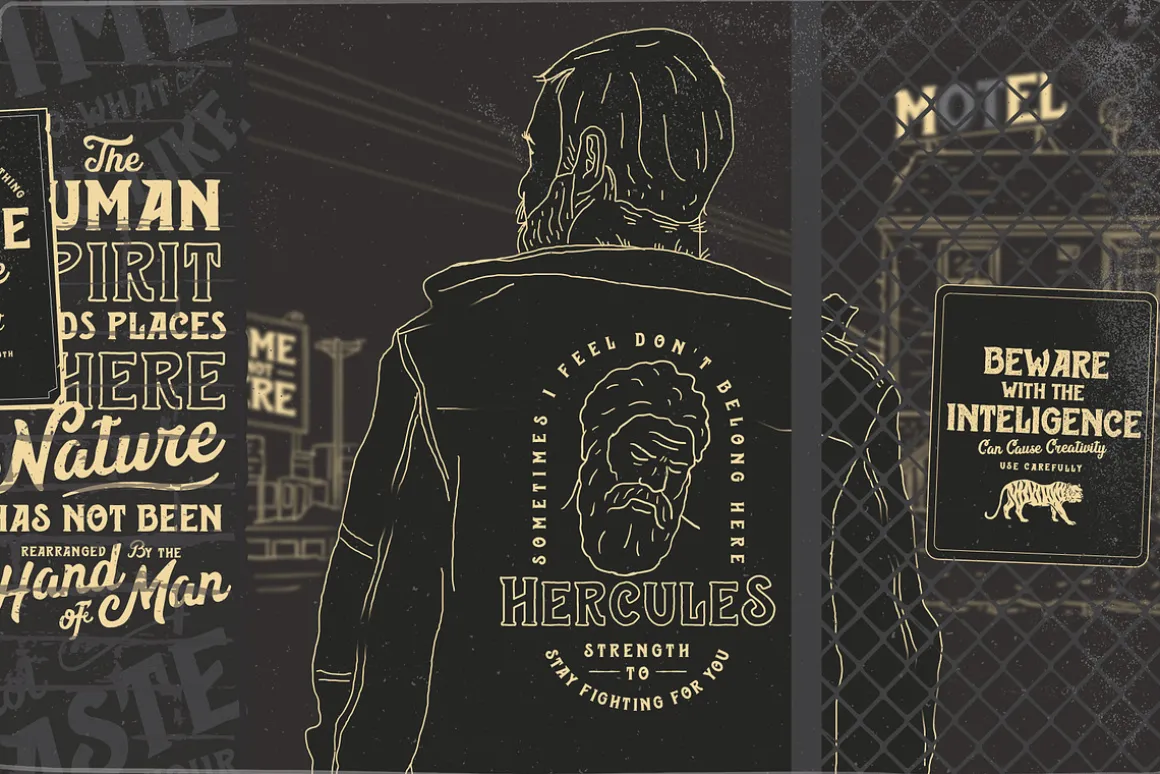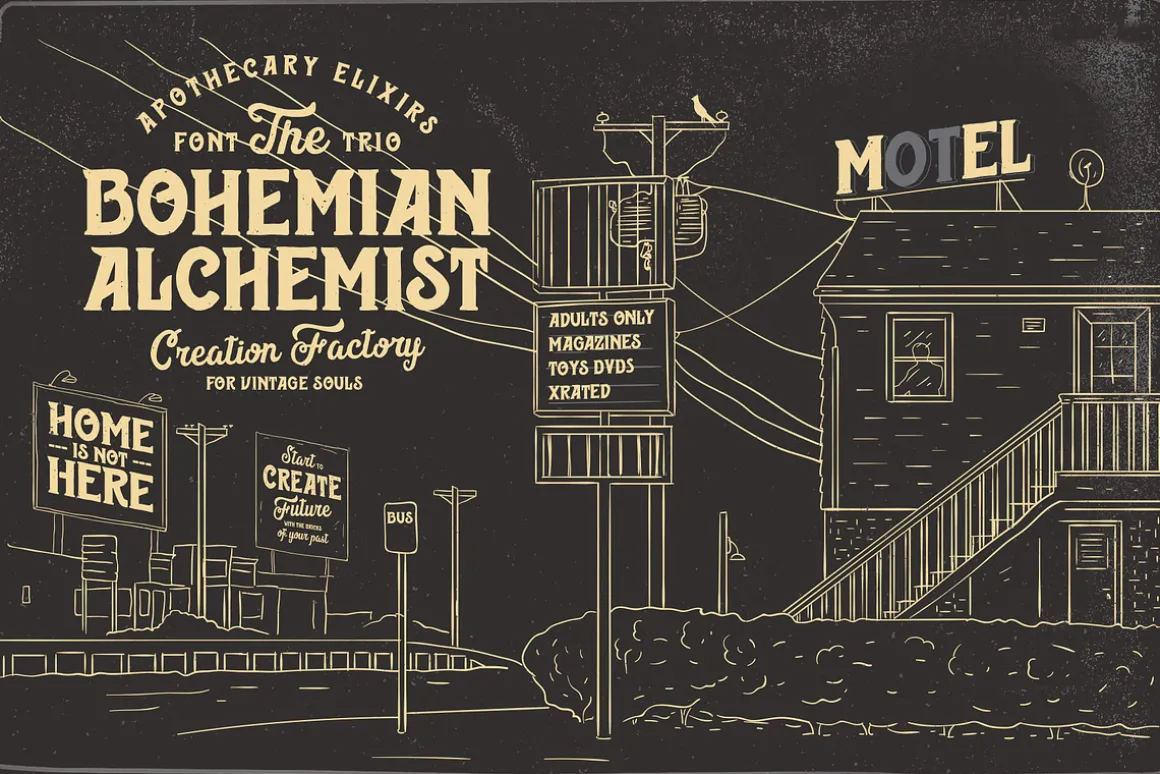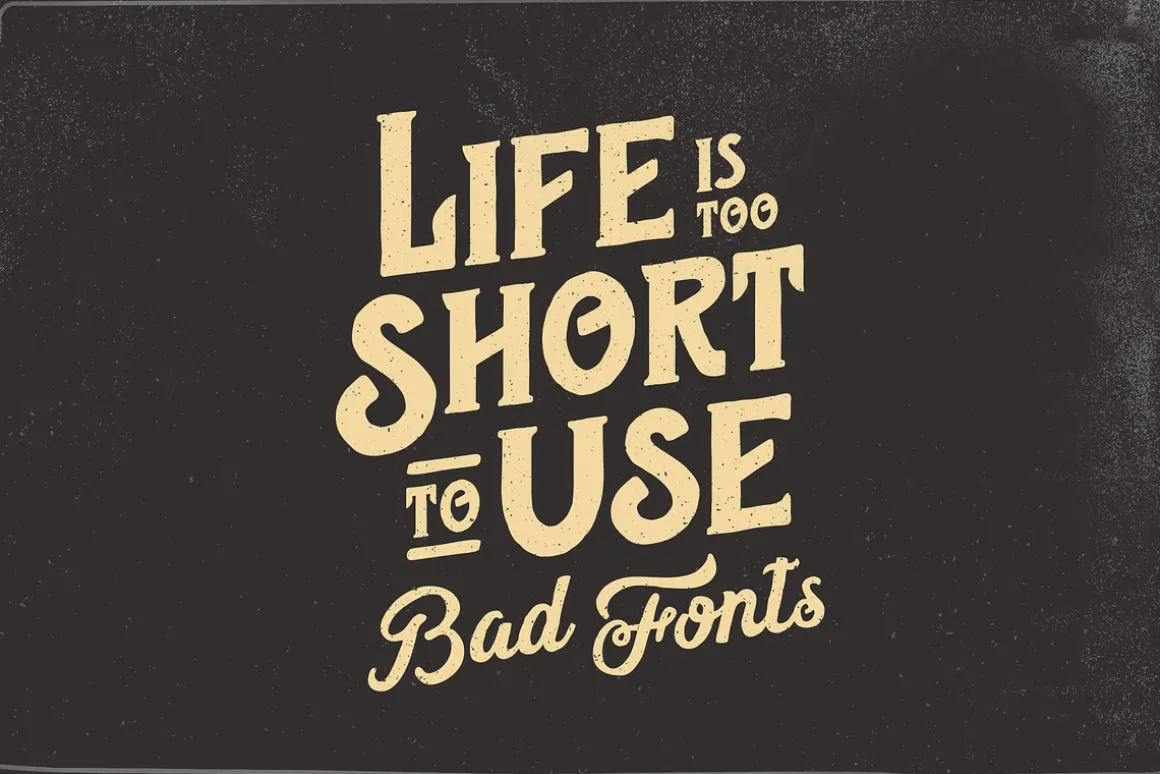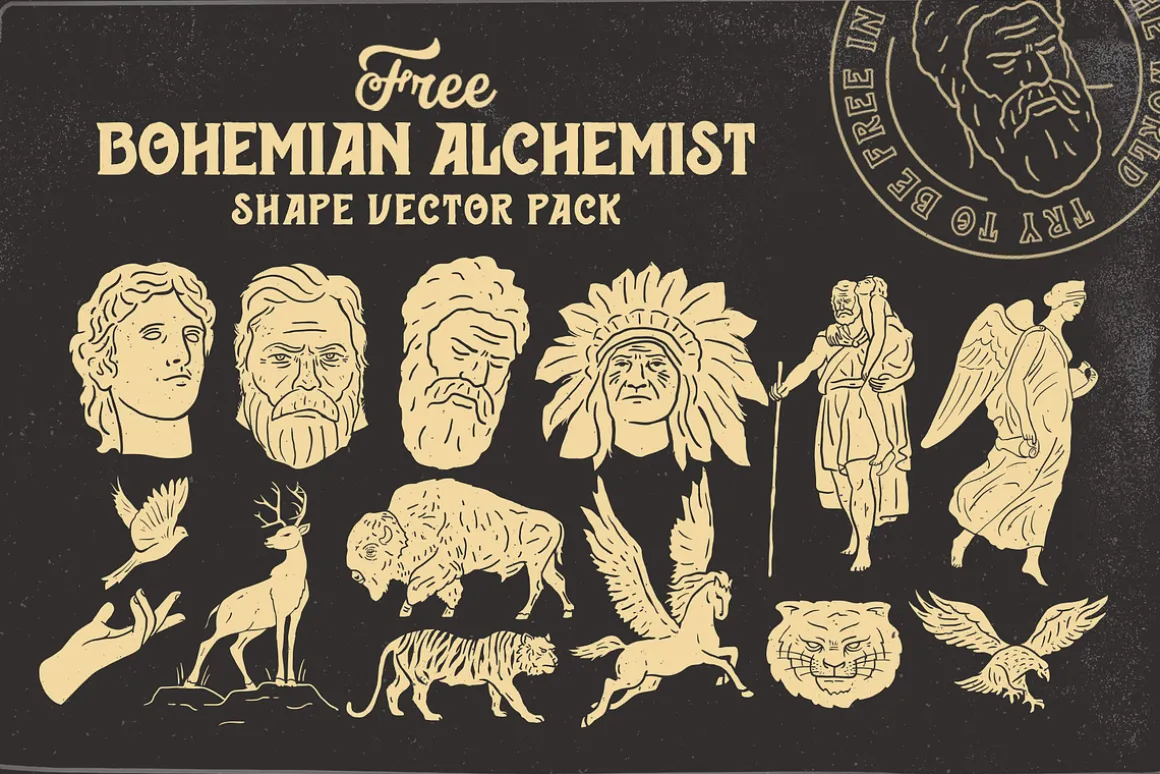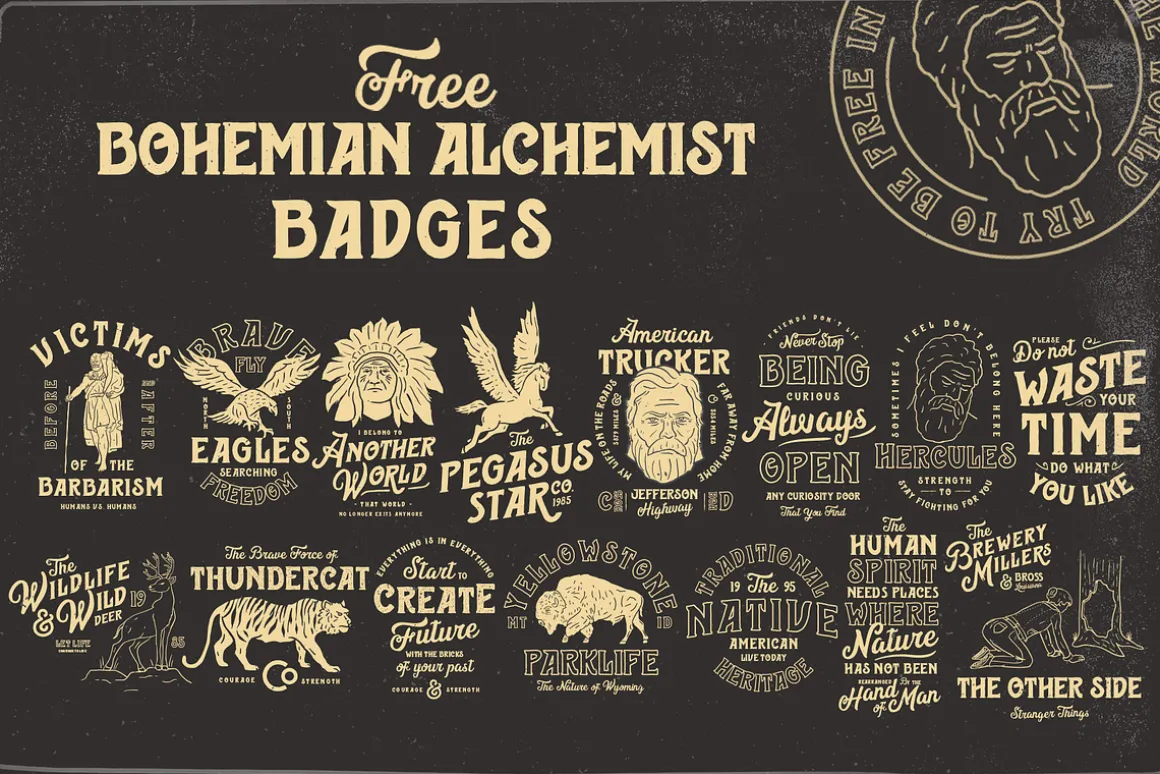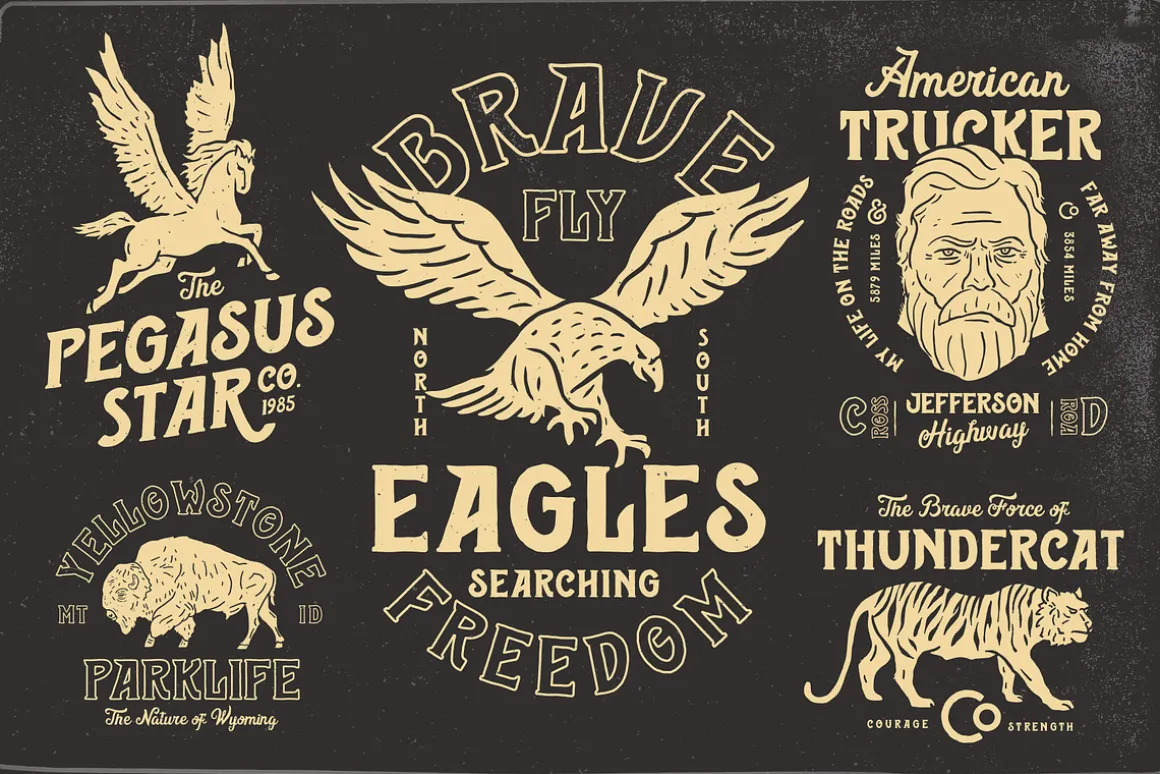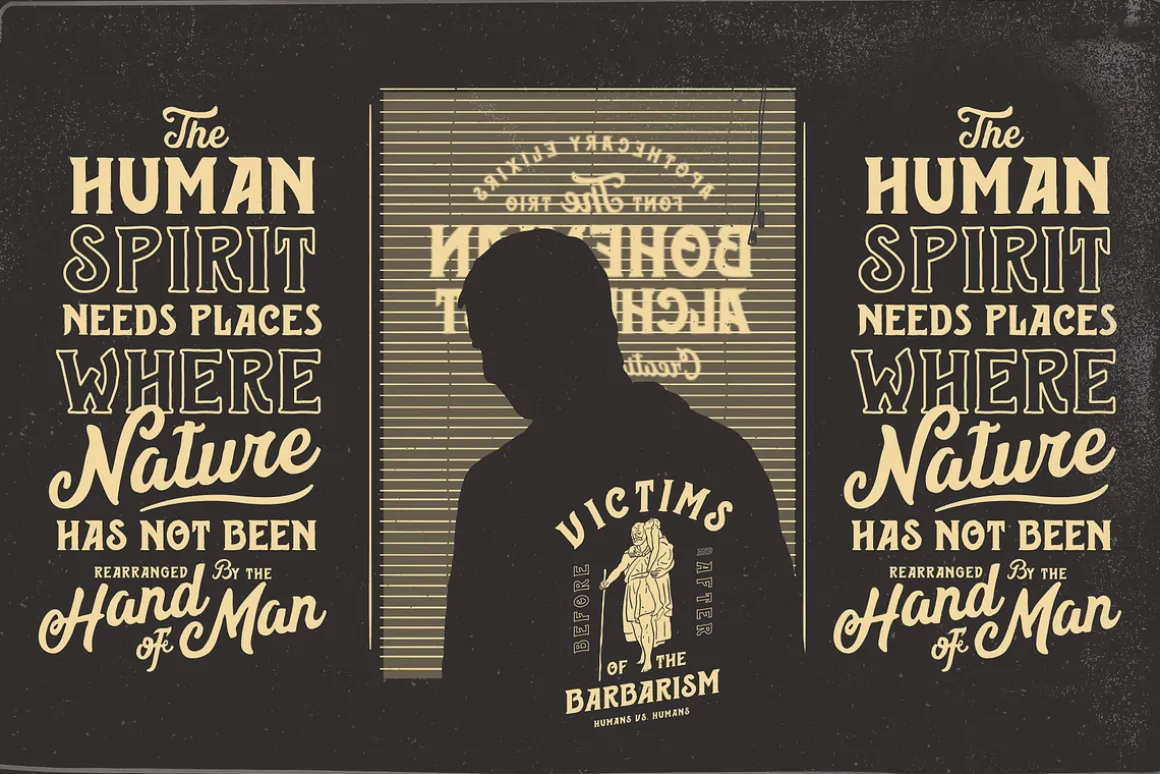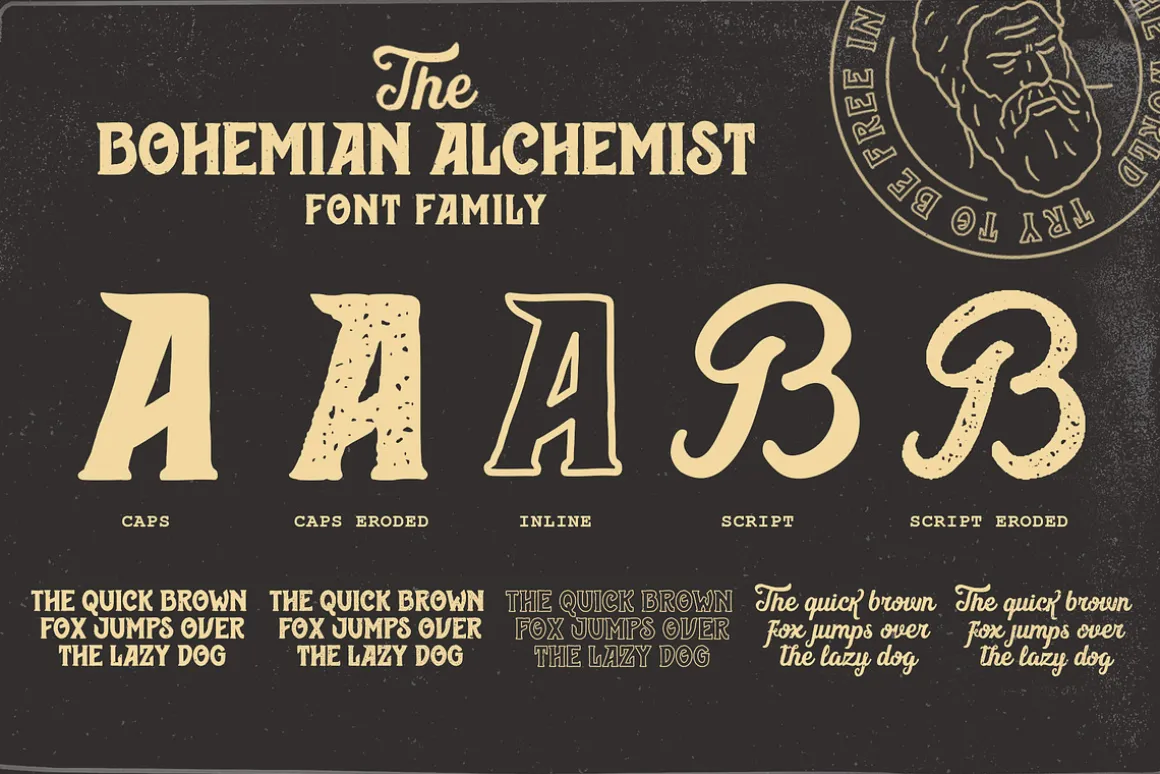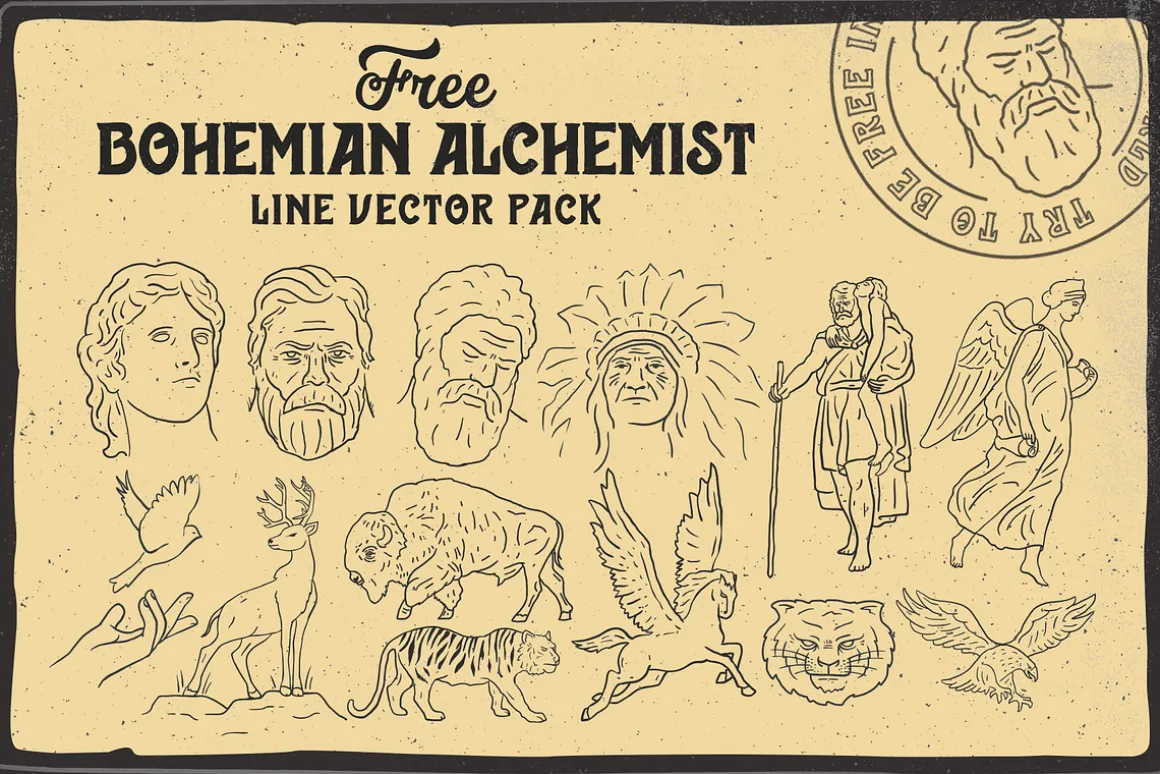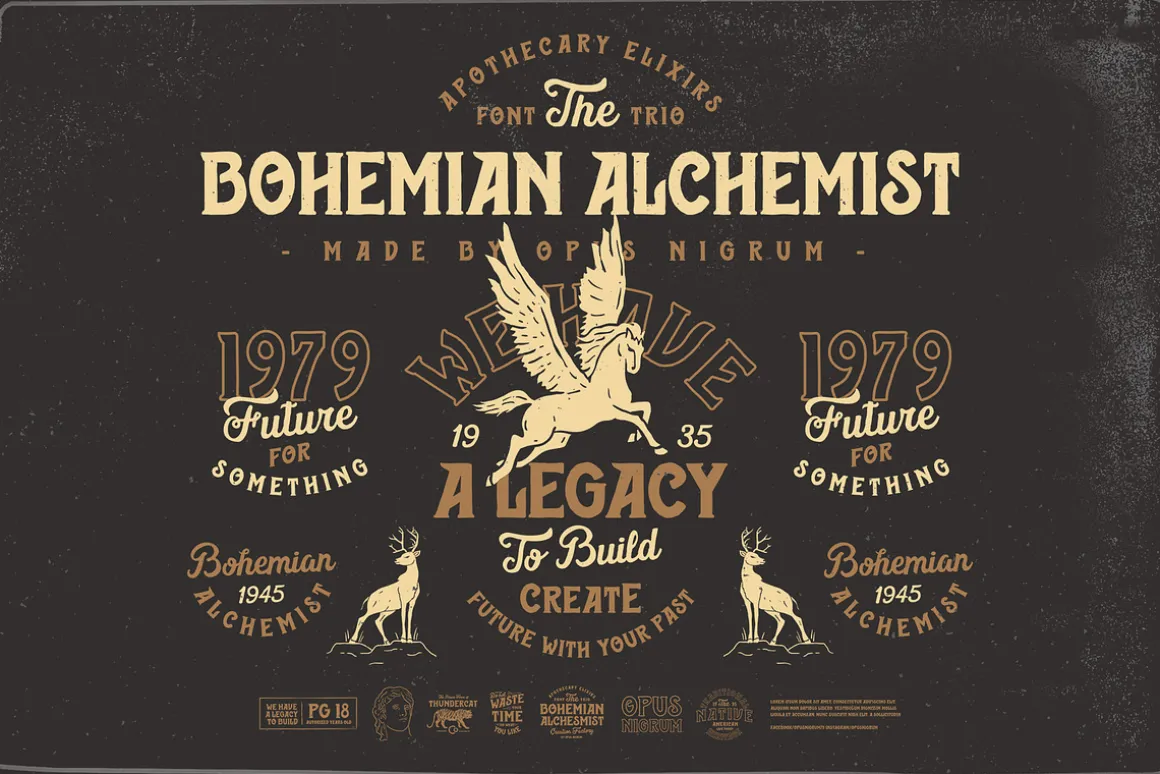
BOHEMIAN ALCHEMIST Font + BadgesThis font was inspired by the old pharmacy bottle labels. With some retro and dirty art deco, handmade. The alchemy of design, everything is in everything and “Bohemian Alchemist” is not the exception, it is the mixture of styles and times to create something unique. This font was made entirely by hand. I hope you like it!